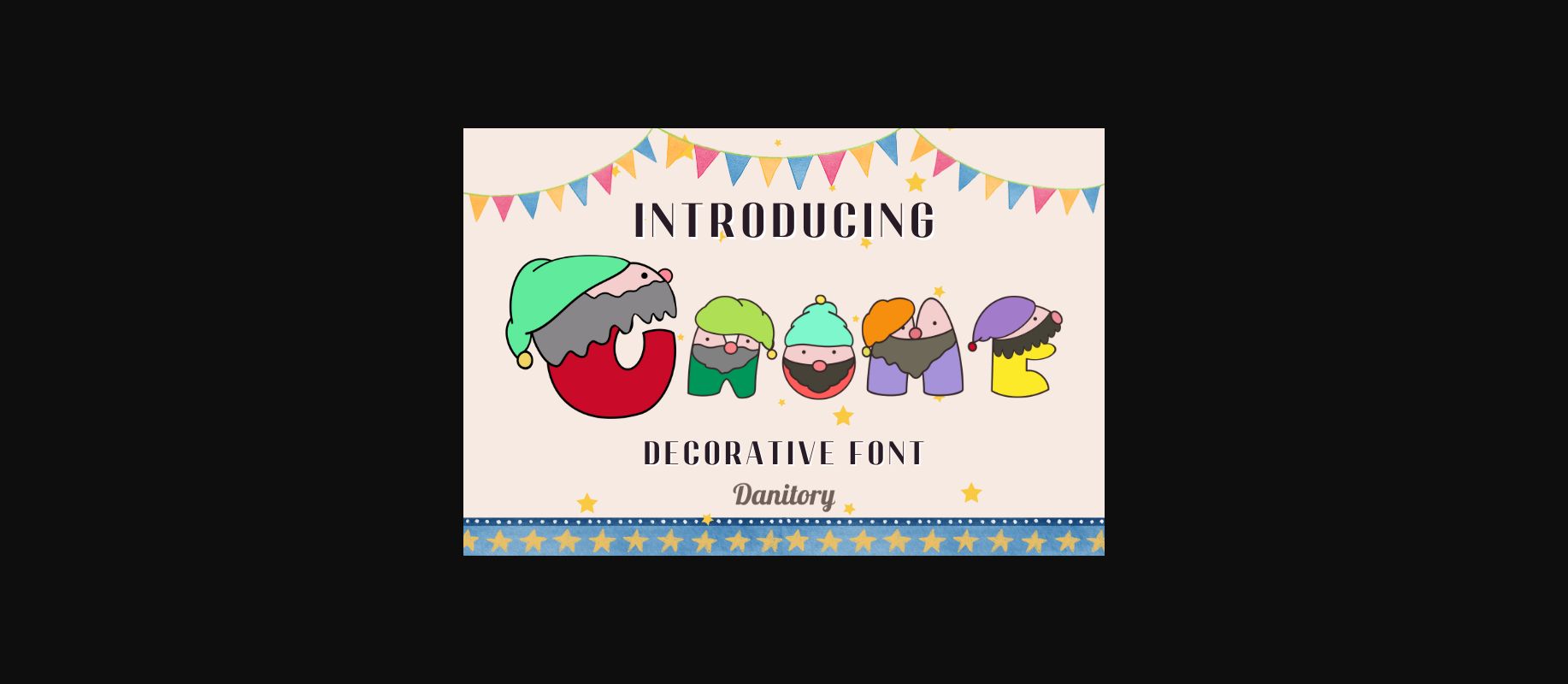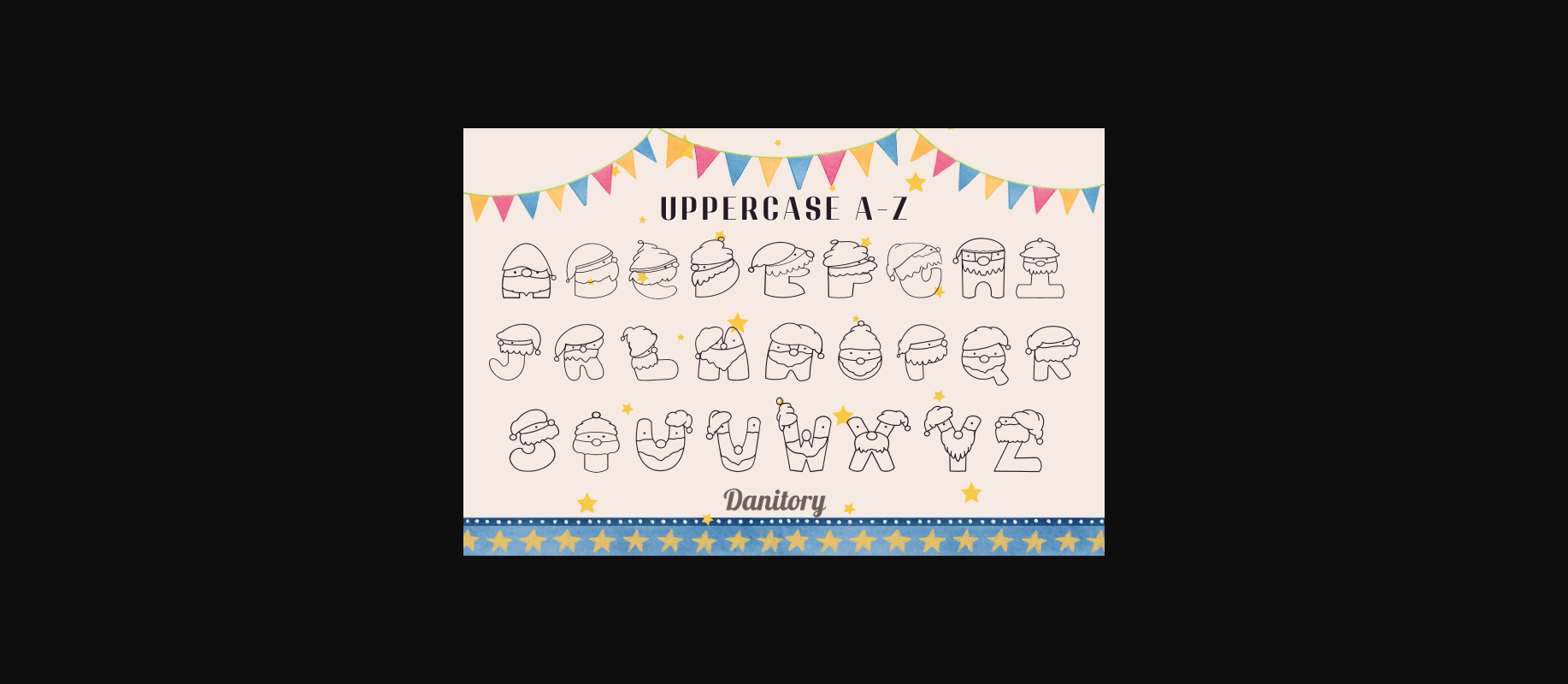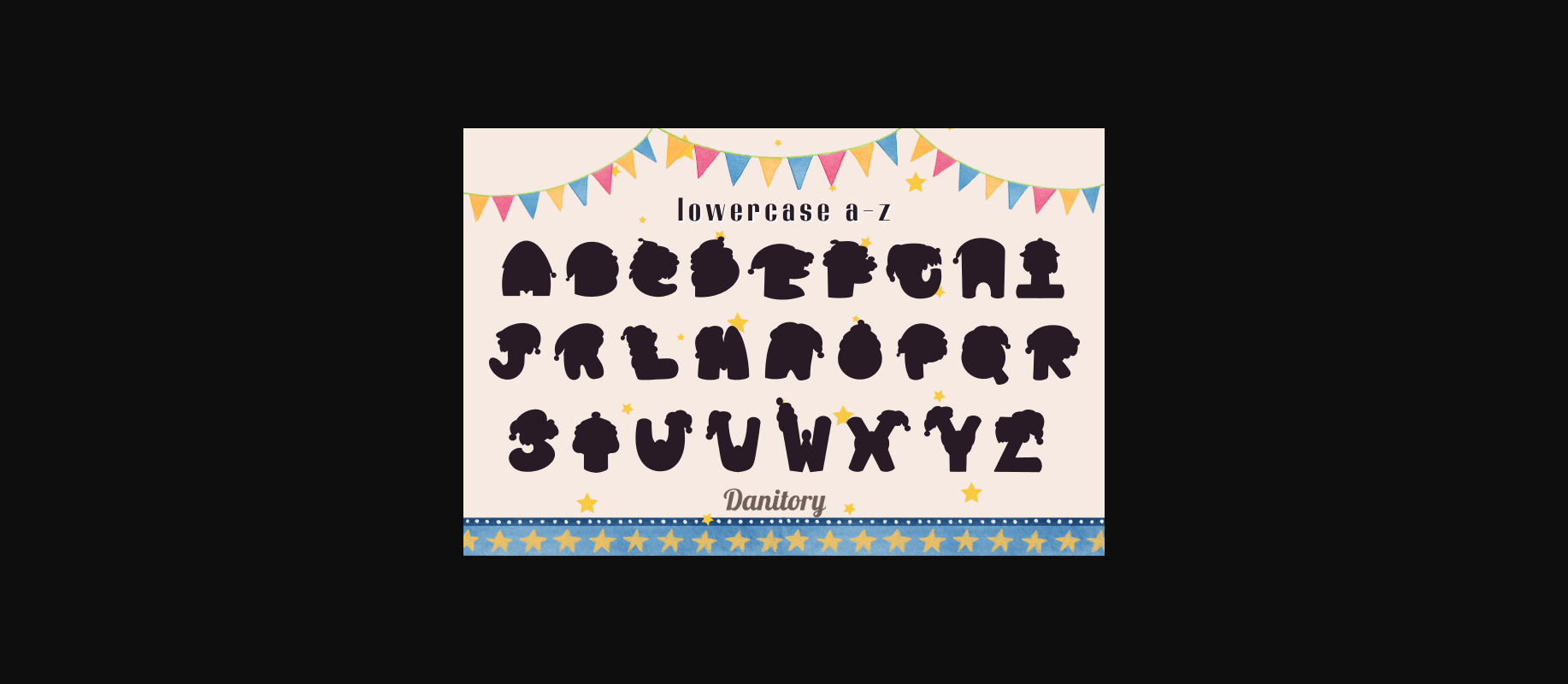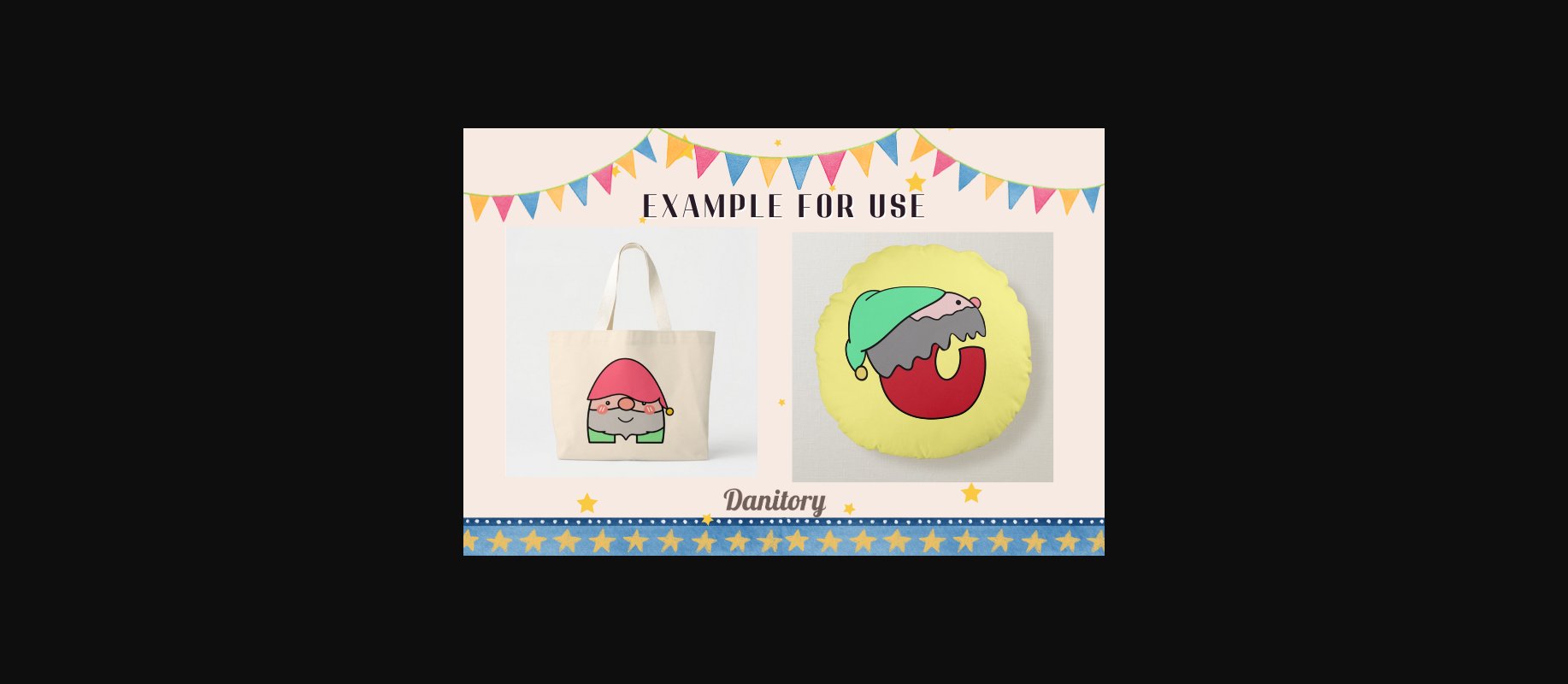
Gnome Font
About Gnome Font
Gnome is both playful and lovely, with letters that add a sense of whimsy and charm to any design. The letters are well-designed, with a mix of unique shapes and delightful details that create a sense of joy and creativity. Its lighthearted and cheerful appearance makes it perfect for greeting cards, posters, and designs that require a touch of personality and fun.